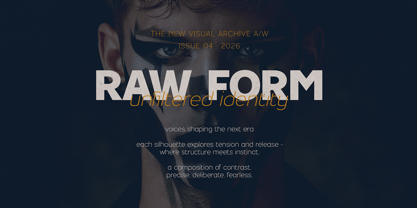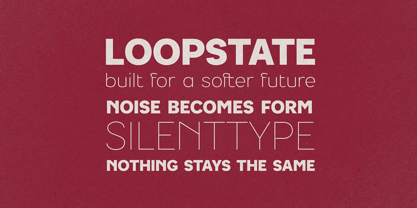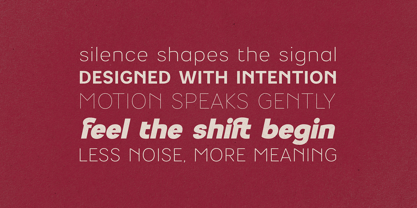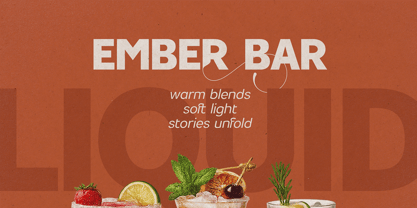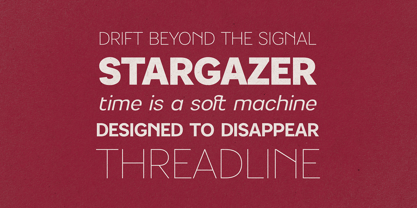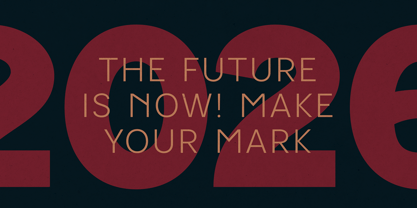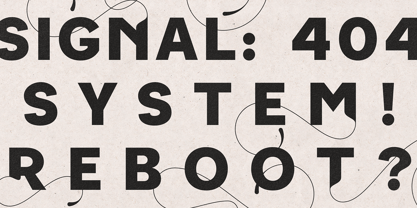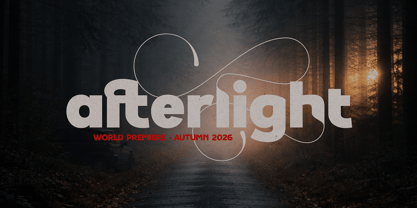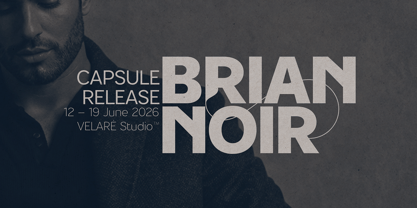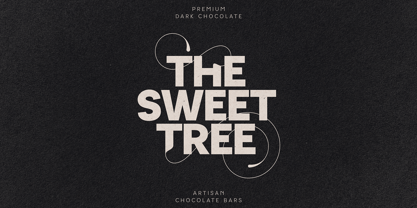
Luma Prime
by VP Creative Shop
The Luma Prime Font Family was designed by Vladimir Fedotov, Plamen Petrov and published by VP Creative Shop. Luma Prime contains 18 styles and family package options. More about this family
LUMA Prime – Modern Sans Serif Typeface LUMA Prime is a powerful modern sans serif typeface designed for bold visual identity, editorial impact, and high-end branding systems. Built with precision and flexibility, it delivers a clean yet expressive voice across both digital and print environments. With its strong geometric foundation and refined curves, LUMA Prime balances structure and personality - making it perfect for everything from fashion campaigns and magazine layouts to packaging, advertising, and contemporary brand identities.
Designers: Vladimir Fedotov, Plamen Petrov
Foundry: VP Creative Shop